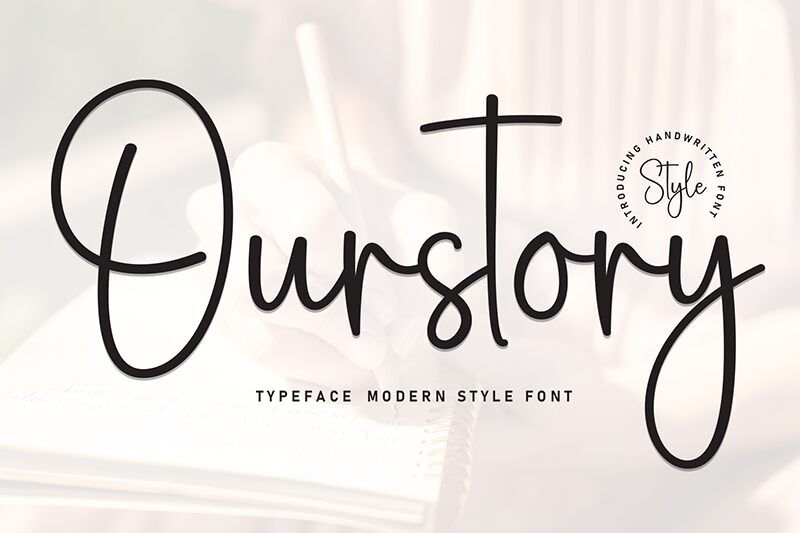
Ourstory font by Scratchones is a free handwritten font with a modern and elegant touch. It combines artistic fluidity with smooth transitions to create an approachable and casual look. The organic feel of this handwritten typeface makes it a great addition to contemporary design applications.
Use it for personal branding, invitations, social media graphics, product packaging, posters, or website designs. This font suits any project where a personal, inviting, and stylish tone is desired.
The latest style letters are ideal for wall displays, wedding invitations, social media post logos, advertisements, product packaging, product designs, labels, photography, watermarks, invitations, stationery, and any project that requires elegant handwriting.